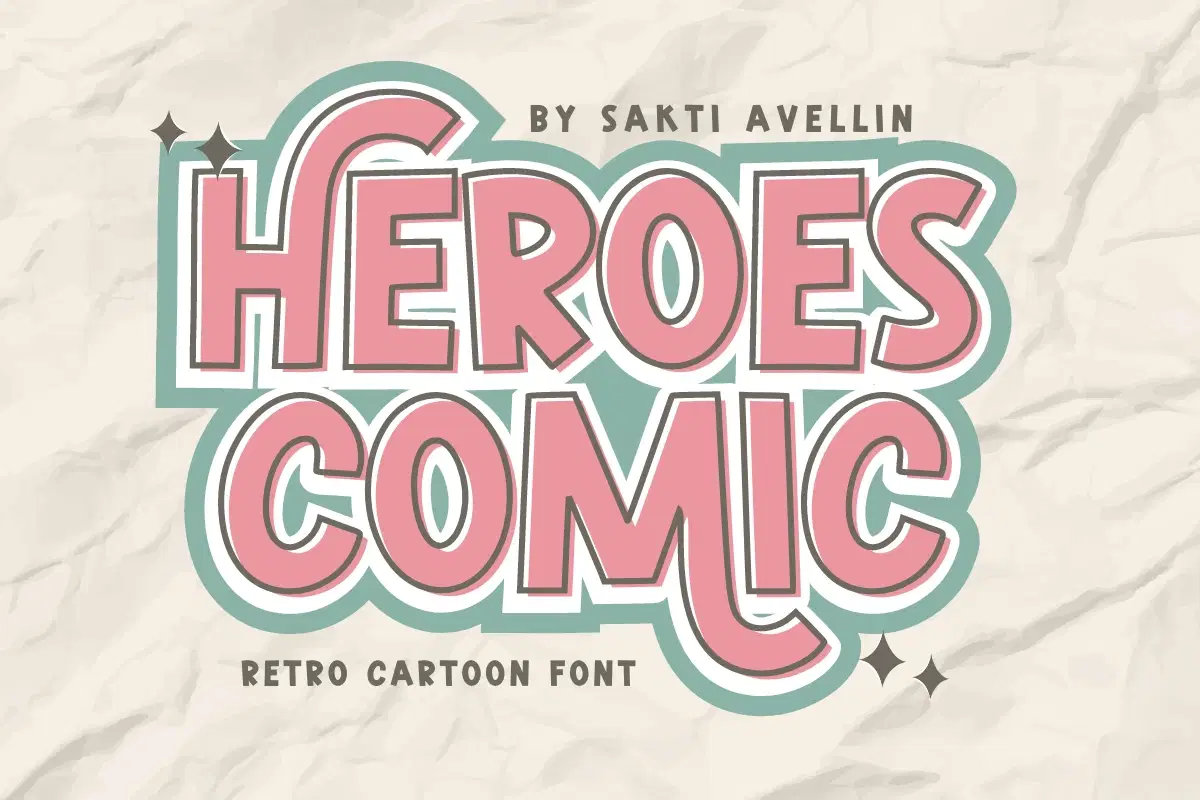
Heroes Comic is a fun, vibrant, and incredibly impactful retro cartoon font that perfectly captures the bold energy of classic comic books. This chunky display font features a strong outline style and a playful, retro appeal, making it essential for kids' branding, engaging comic book titles, fun t-shirt designs, energetic posters, and eye-catching video game graphics. Its high visibility and dynamic style ensure it is a powerful display typeface for headlines and product packaging, appealing to a trendy audience seeking a nostalgic, bold, and adventurous look. Become a design hero with this delightfully chunky cartoon font!